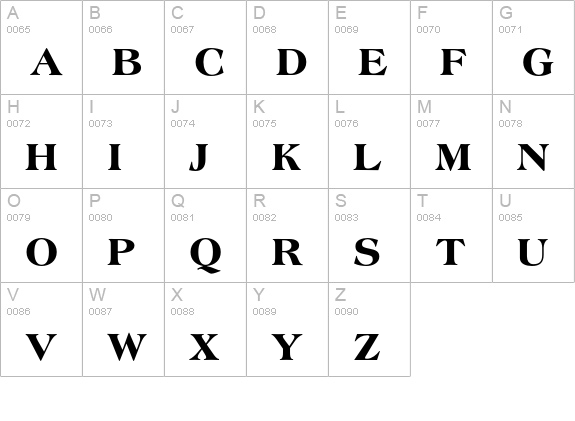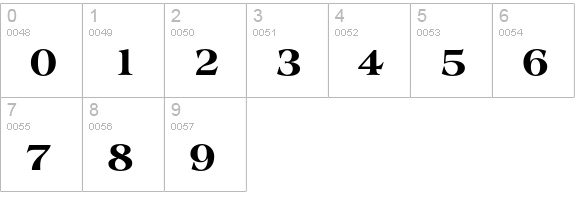
Americana Std Extra Bold Font Details
Americana Std Extra Bold is a strong, high-contrast variant in the Americana typeface family \xE2\x80\x94 well suited to headlines, attention-grabbing titles, and strong calls-to-action.
Americana Std Extra Bold is a bold and impactful font that exudes strength and confidence. With its thick and sturdy letterforms, this typeface is perfect for headlines, titles, and other text that needs to make a statement. The bold weight of Americana Std Extra Bold commands attention and adds a touch of boldness to any design. What makes Americana Std Extra Bold even more appealing is that it is available for free download at FontsMarket.com. This means that you can easily access and utilize this dynamic font in your projects without any cost. Whether you're looking to create eye-catching posters, striking banners, or powerful logos, Americana Std Extra Bold has got you covered. Download this font today and take your designs to the next level with its bold and impactful presence.